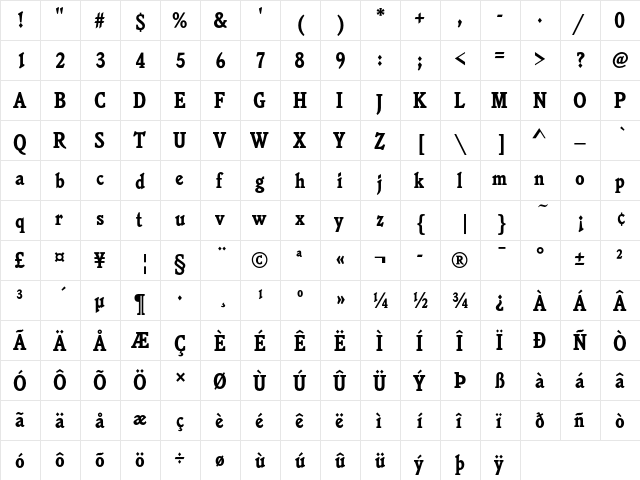
Jenson Old Style LT Std BdCn
| Foundry | Linotype GmbH |
| Designer | Freda Sack, Colin Brignall and Letraset Design Studio |
Design Context for Jenson Old Style LT Std Typeface
Jenson Old Style LT Std offers clean, dependable letterforms without strong stylistic allegiance, making it a practical choice for designers who need flexibility. Its slender proportions lend an understated elegance to any composition.